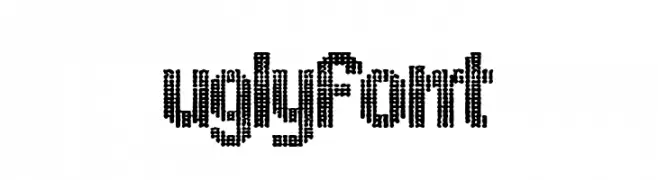
A bold, pixelated decorative font with a retro digital aesthetic.
An ornate and decorative font with intricate swirls and embellishments.
Illustrative, fashion-themed decorative display font featuring women in various poses.
A bold, decorative font with geometric patterns inside each character.
A bold, textured font with a playful, cloud-like design.
A bold, playful font with exaggerated, irregular shapes and dynamic energy.
A bold, angular font with a dynamic and energetic style.